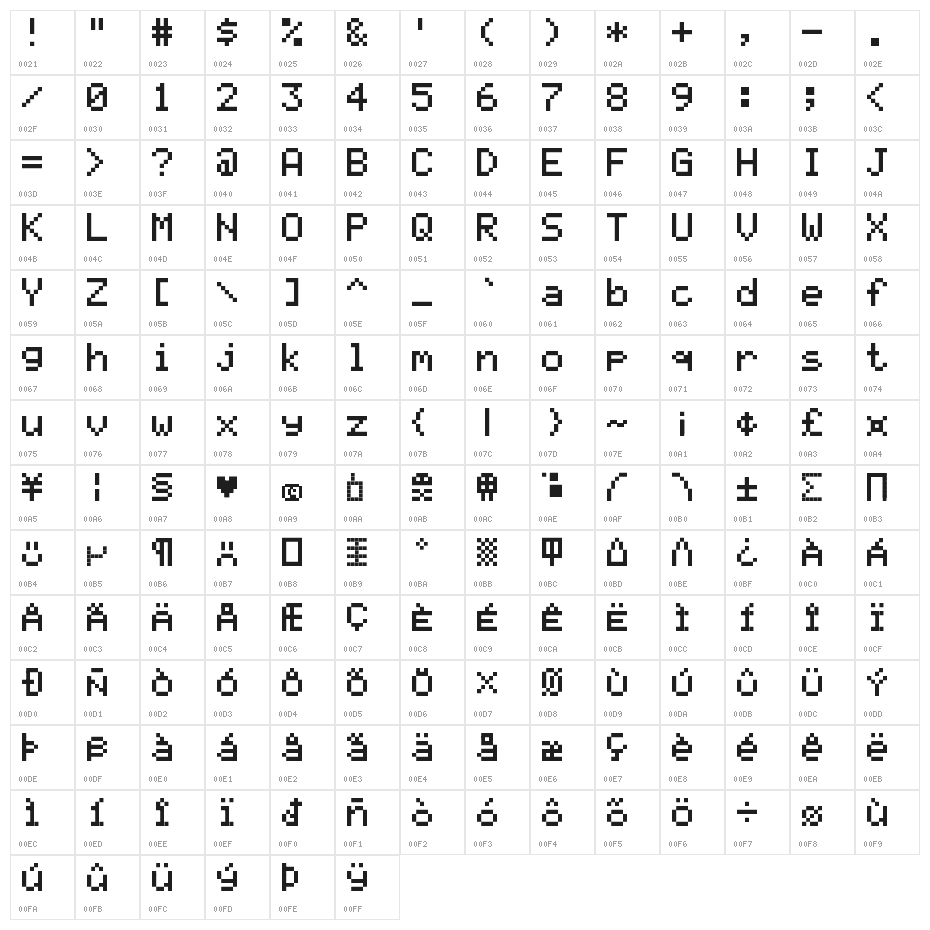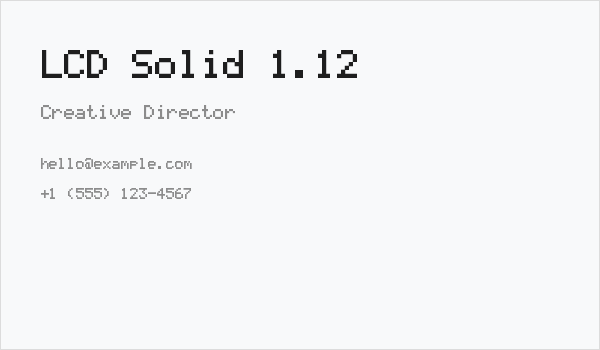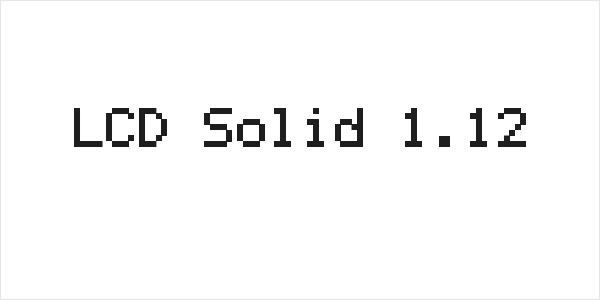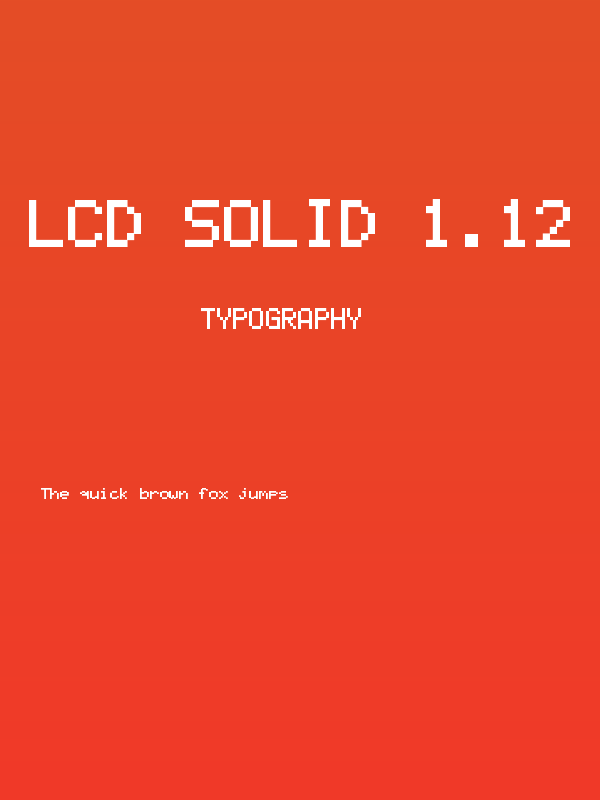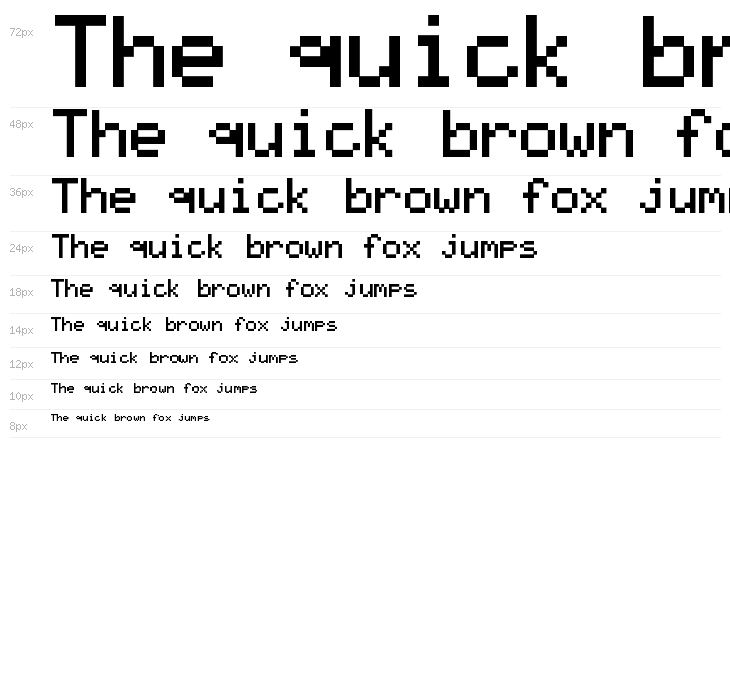
LCD Solid 1.12 Font
| Spațiere caractere | Normal |
| Caz de utilizare | Logos, Headlines, Digital displays |
| Proiecte propuse | Ideal for retro video games, digital art projects, tech-themed designs, and any creative work that seeks to emulate vintage computer aesthetics. |
| Lățime fixă | Yes |